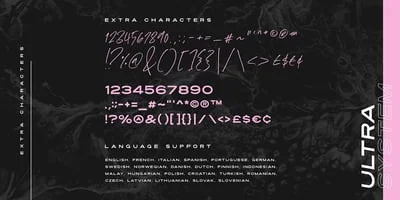
Ultra System Font
Ultra System Font is perfect for futuristic projects including tech startup branding, gaming interface designs, sci-fi movie posters, cyberpunk artwork, electronic music album covers, digital platform interfaces, virtual reality applications, and cutting-edge technology marketing. This dynamic typeface brings advanced technology aesthetics and digital innovation to any design project.
What makes Ultra System Font exciting is its bold representation of next-generation technology and digital supremacy. The sleek letterforms feature angular constructions and high-tech characteristics that instantly communicate innovation and technological advancement. This font delivers the commanding presence needed for brands operating at the forefront of digital transformation, creating an immediate association with cutting-edge performance and futuristic capabilities.
The Ultra System Font family typically includes multiple weights from regular to ultra-bold with technological styling, complete character sets featuring uppercase and lowercase letters, numerals, technical symbols, and digital-inspired elements. The design often incorporates geometric precision and electronic aesthetics that enhance the high-tech atmosphere. Some versions include stylistic alternates, display variants, and specialized characters perfect for gaming and technology applications.
Whether you're designing for tech corporations, gaming companies, or digital innovation brands, Ultra System Font delivers the technological superiority that positions brands as industry leaders. Its powerful presence makes it ideal for impactful headlines and brand identities that need to convey advanced capabilities and future-ready thinking. The font's system heritage ensures it communicates precision and performance, making it perfect for any project requiring the authoritative aesthetic of technological excellence and digital dominance.